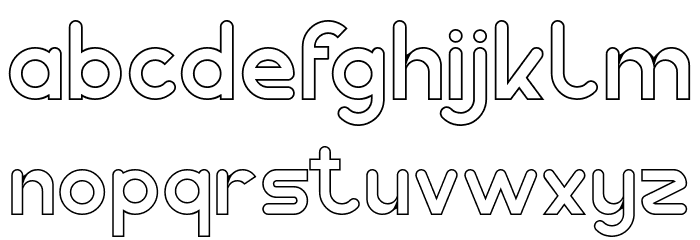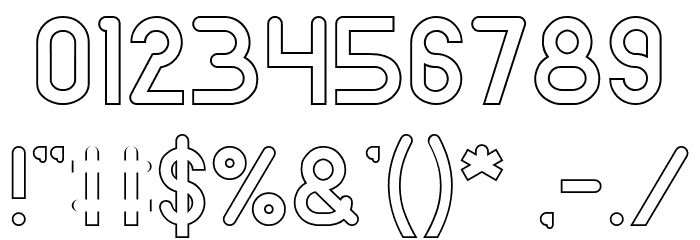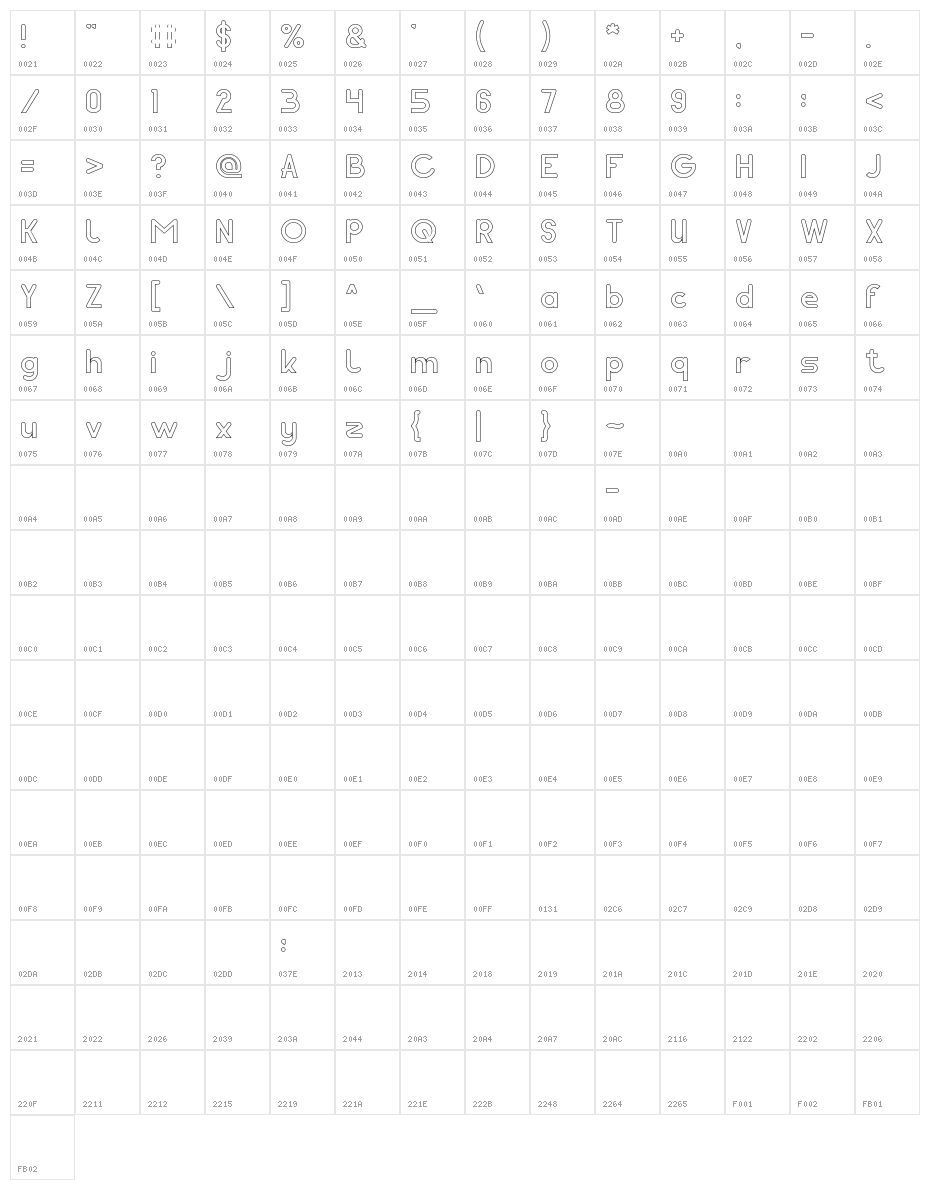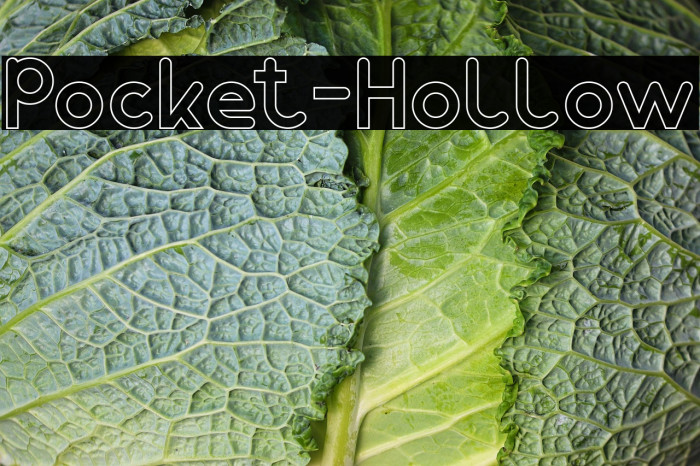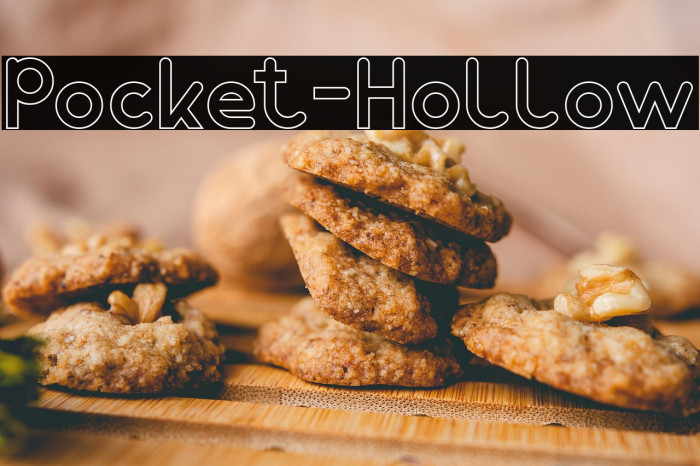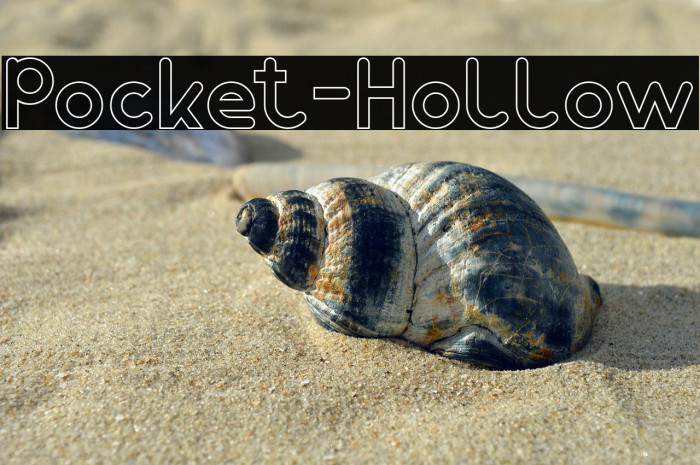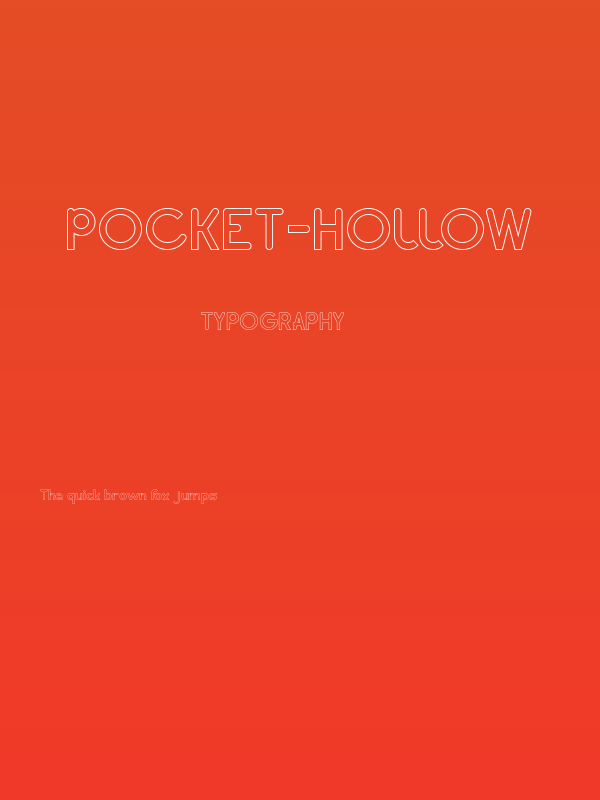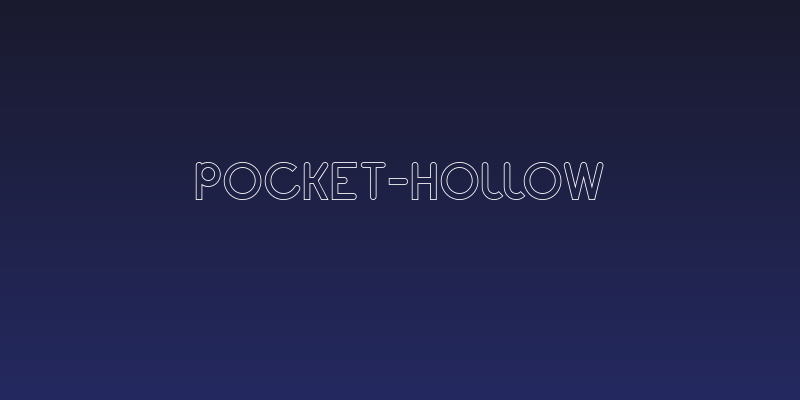
Pocket-Hollow Font
This font features a hollow, geometric design with clean lines and a modern aesthetic. Each character is outlined, creating a sense of openness and space within the letters. The uppercase and lowercase letters maintain a consistent style, with rounded edges and uniform stroke widths. The numerals and special characters follow the same design principles, ensuring a cohesive look across all elements. This font's unique hollow style makes it stand out, offering a contemporary twist on traditional geometric fonts.
A modern, hollow geometric font with clean lines and rounded edges.
- Proposed Projects: Ideal for branding, posters, and digital media where a modern and distinctive look is desired.